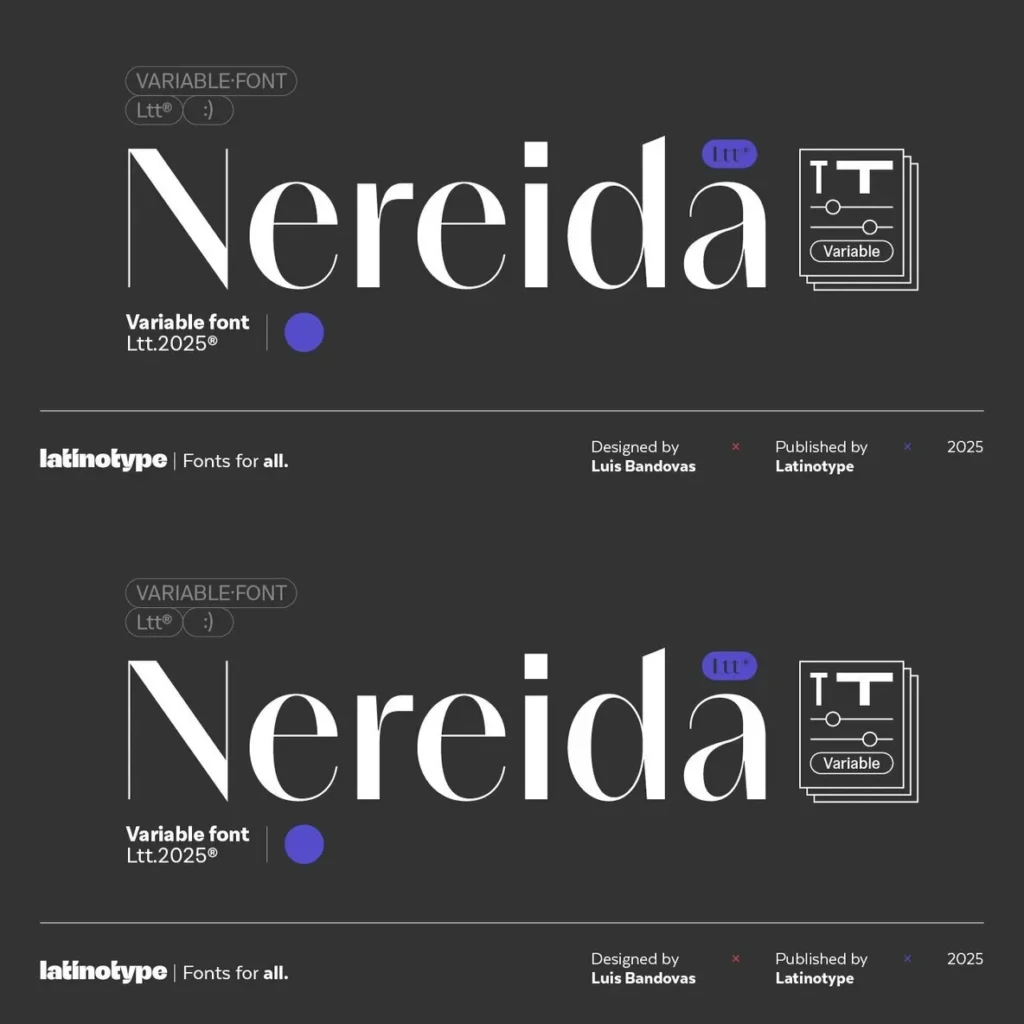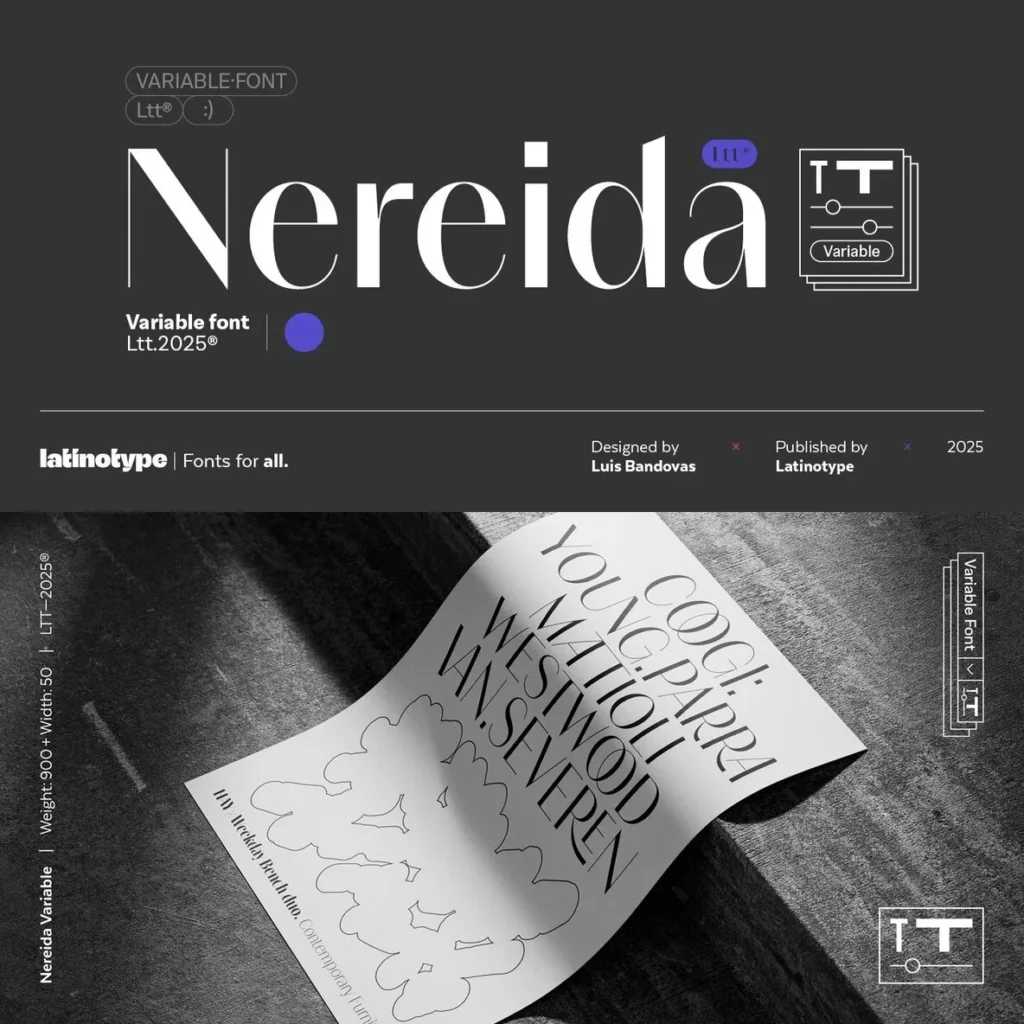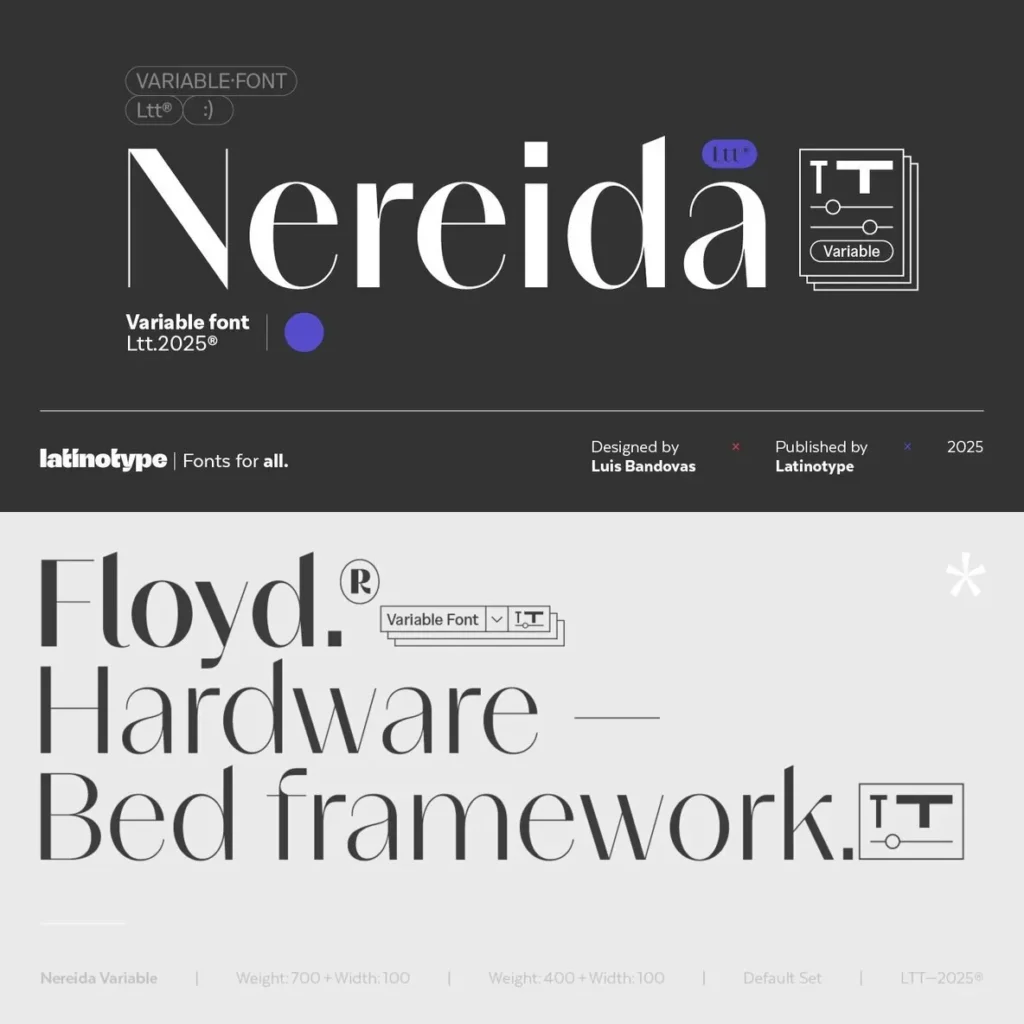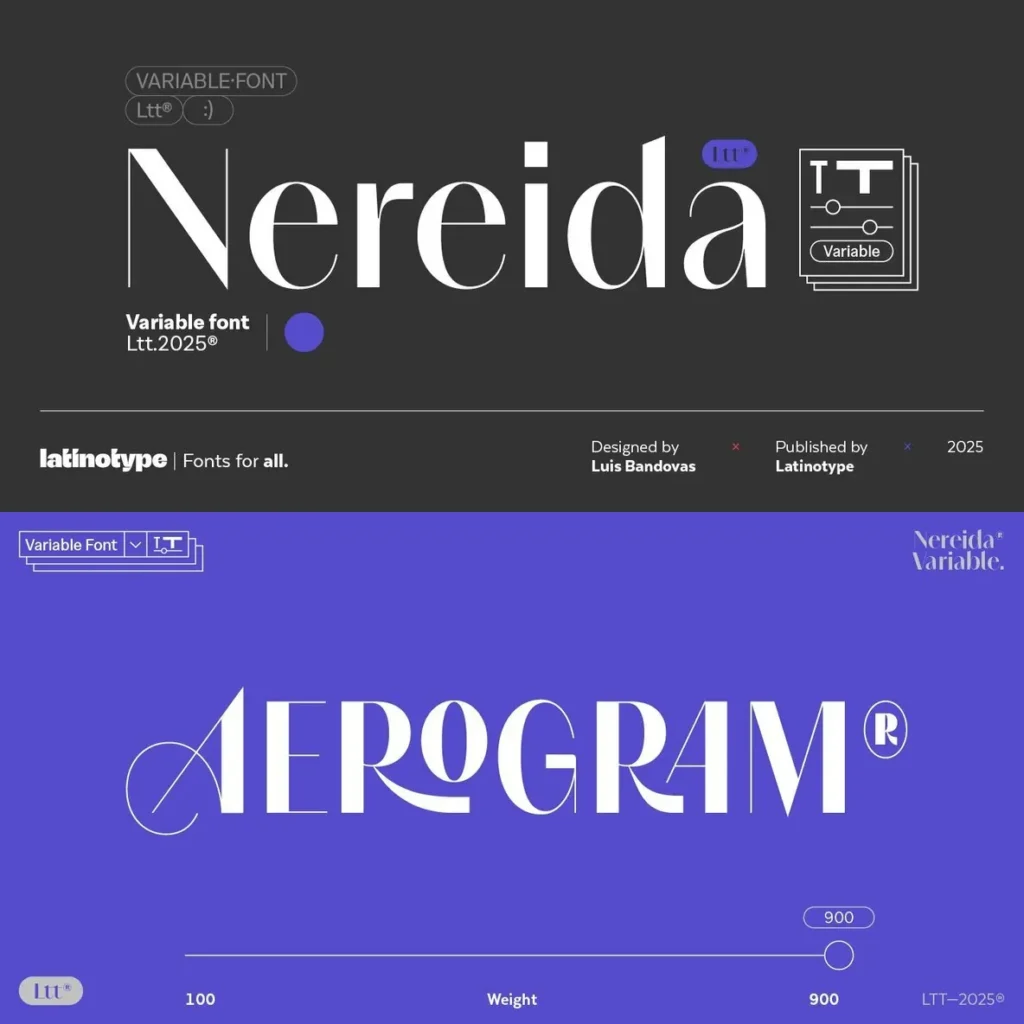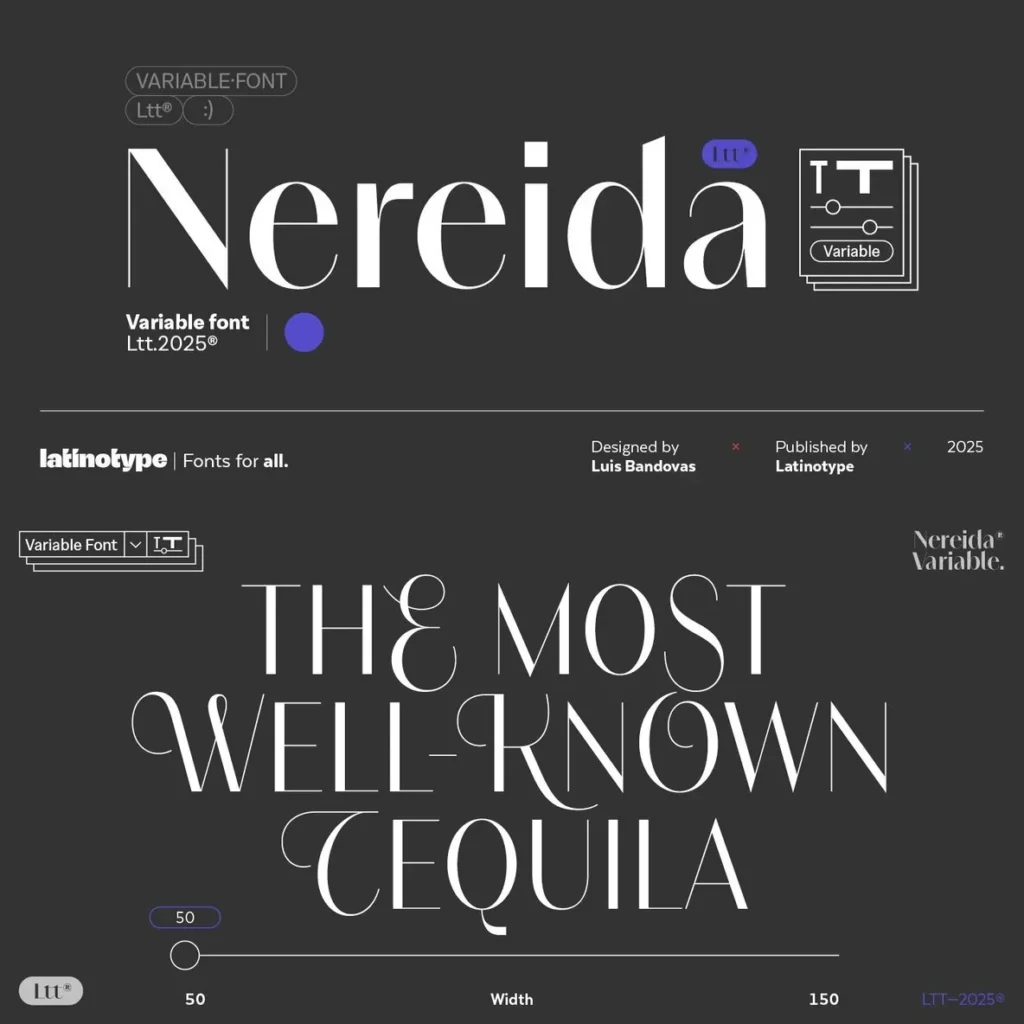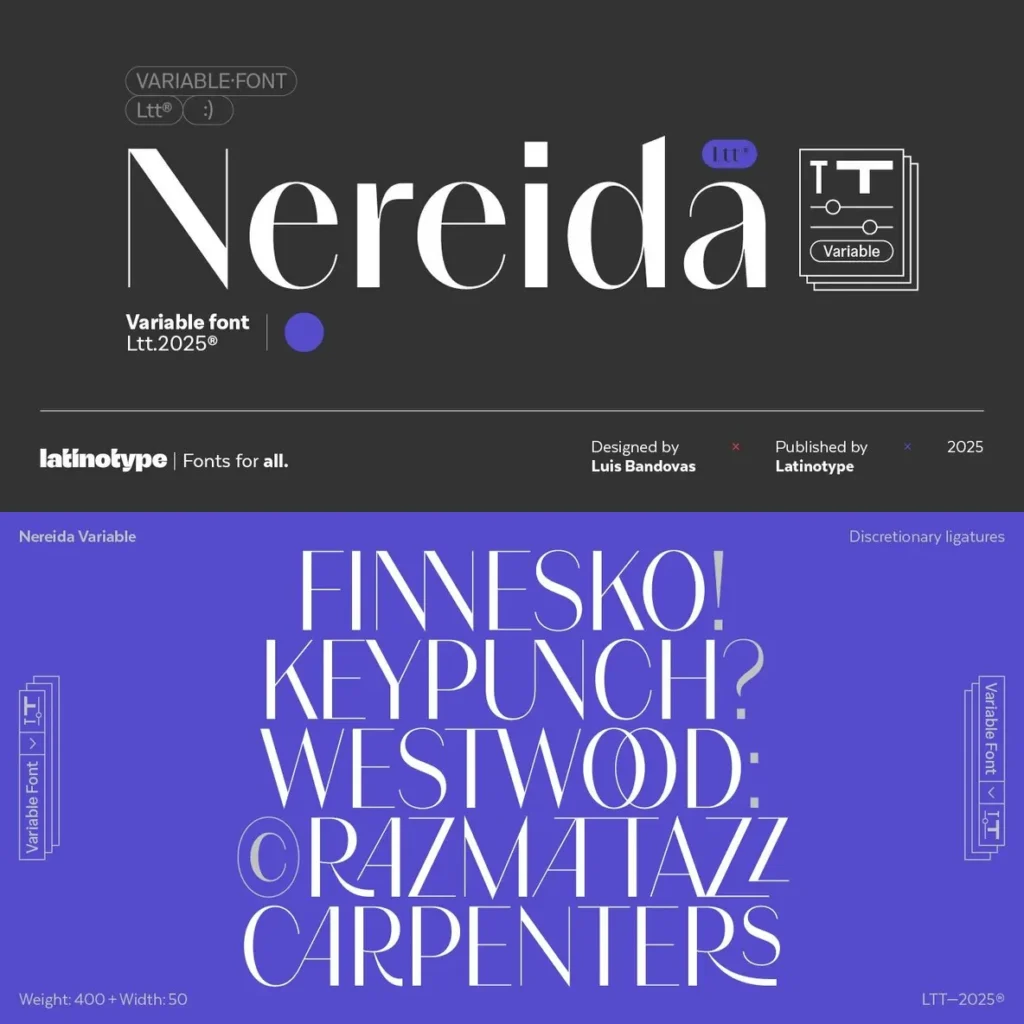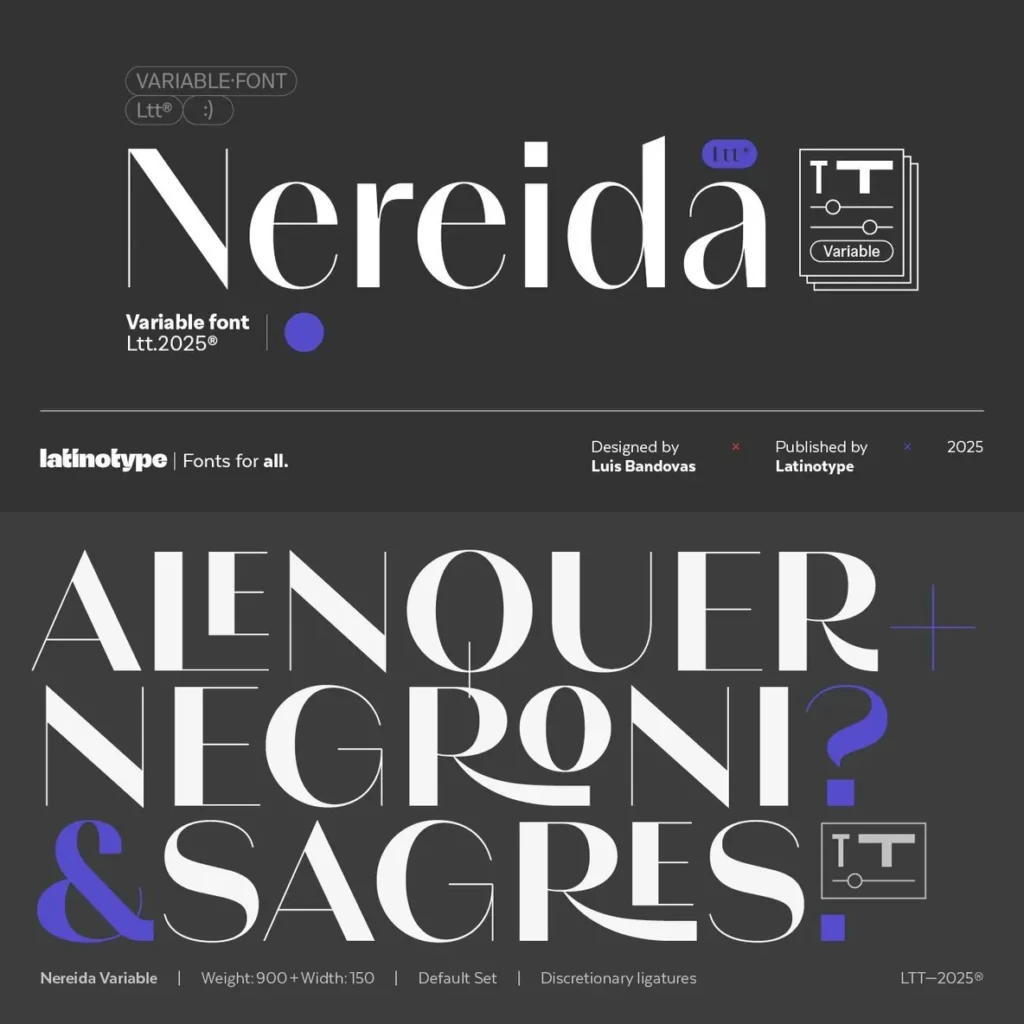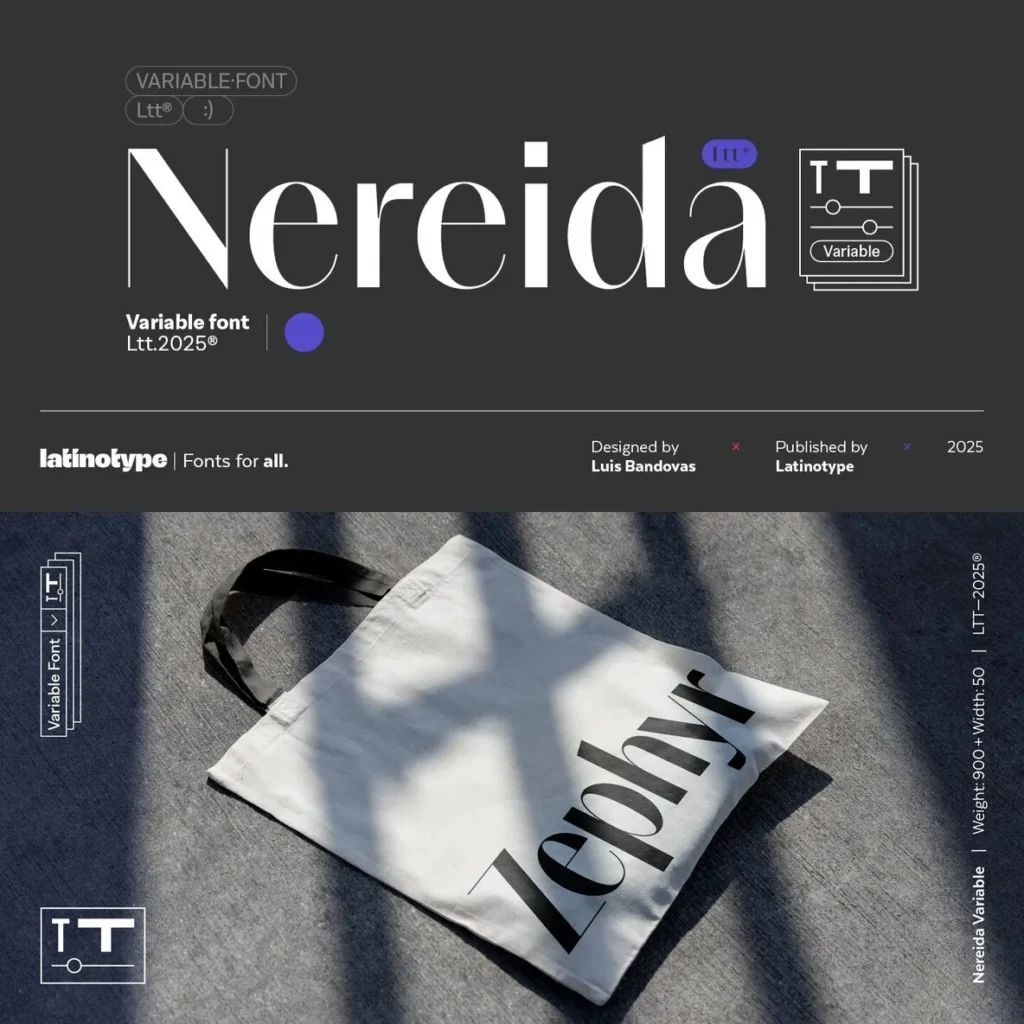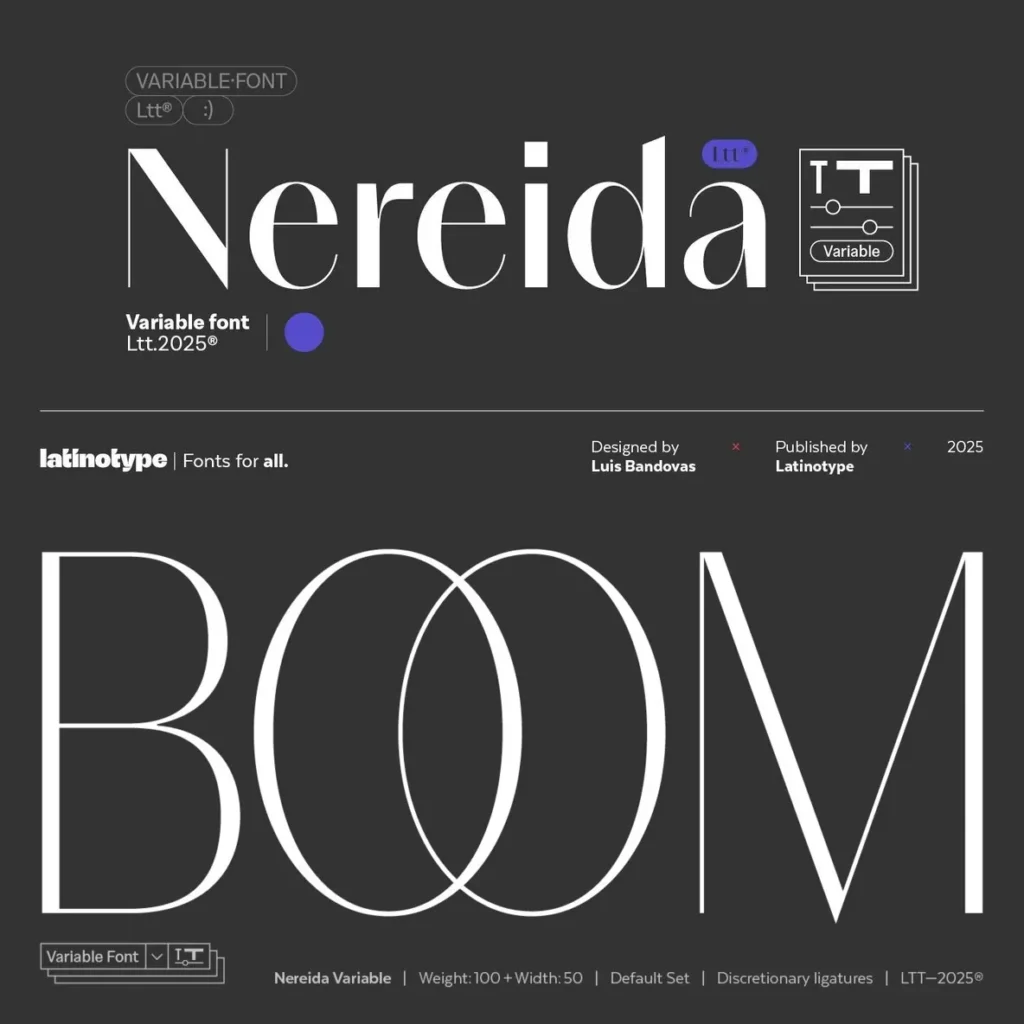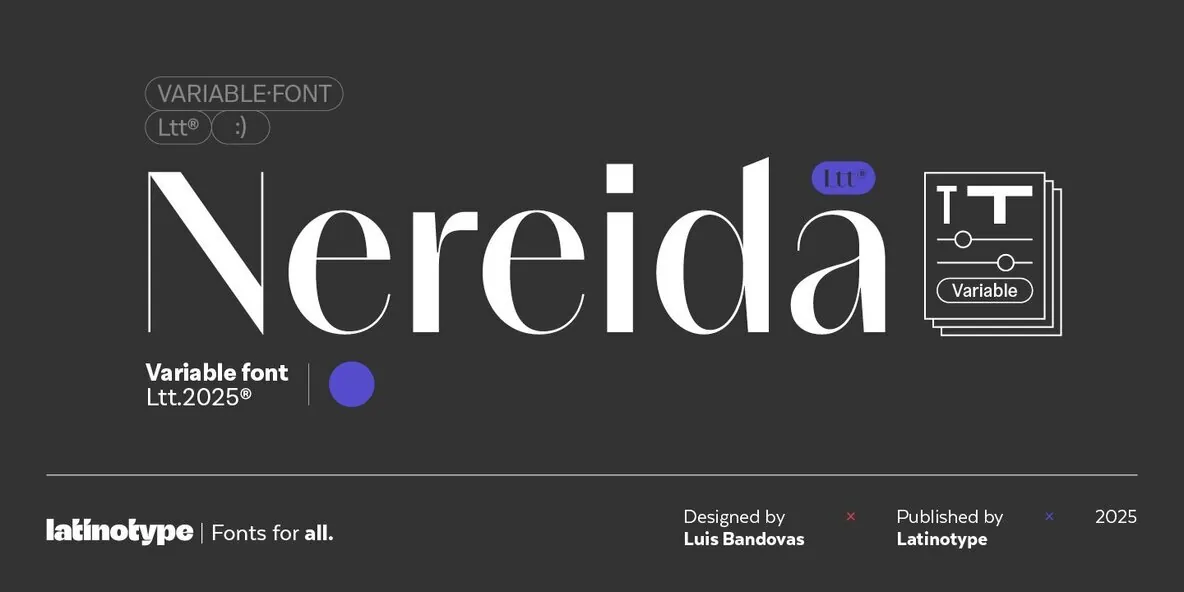
Nereida Variable—A Refined Typeface for Creative Typography
Nereida Variable is a sophisticated typeface that blends delicacy with a luminous, airy presence. Its expressive nature brings both versatility and charm, making it well-suited for refined visual identities and imaginative layouts. The high contrast within its letterforms creates a striking and elegant appearance, ensuring each word stands out with distinction.
This typeface adapts seamlessly to a range of contexts, from luxurious branding to artistic magazine spreads. Its combination of subtle curves and expressive shapes offers designers a reliable tool for projects requiring both beauty and clarity.
Key Features
Dainty, luminous character shapes
High-contrast design for visual impact
Versatile enough for both display and editorial use
Expressive style suited for elegant compositions